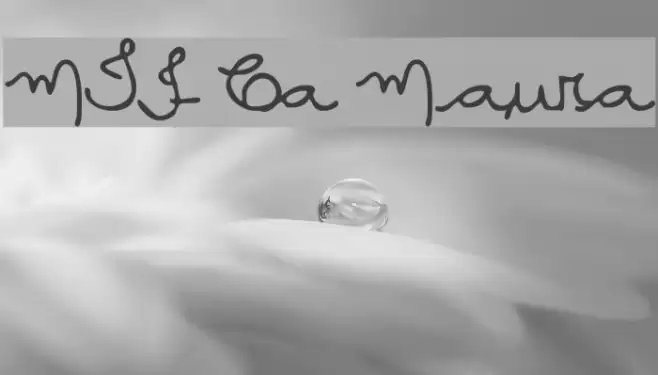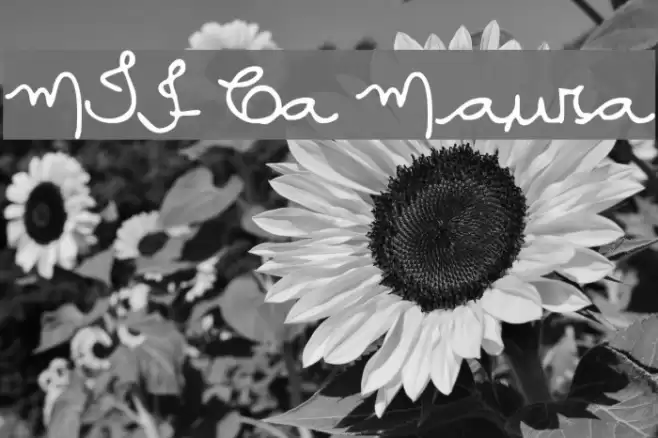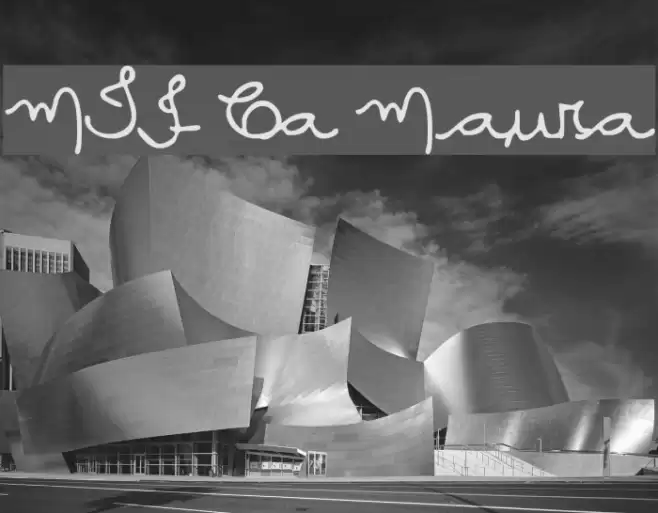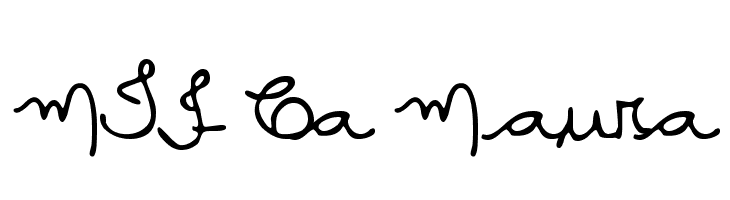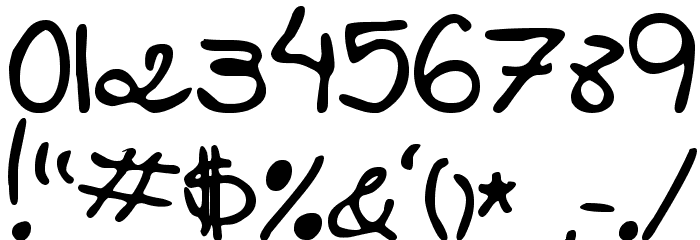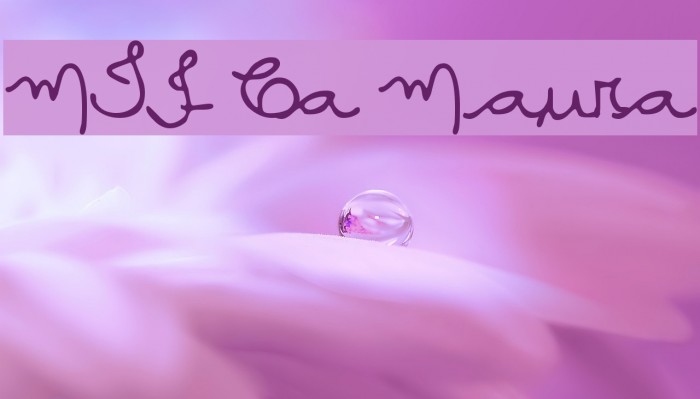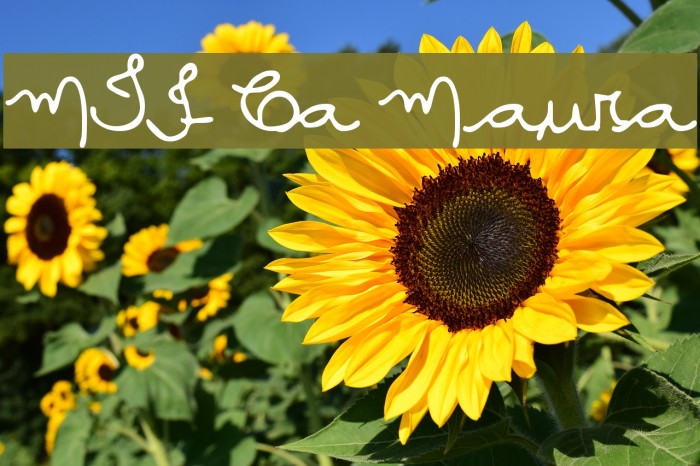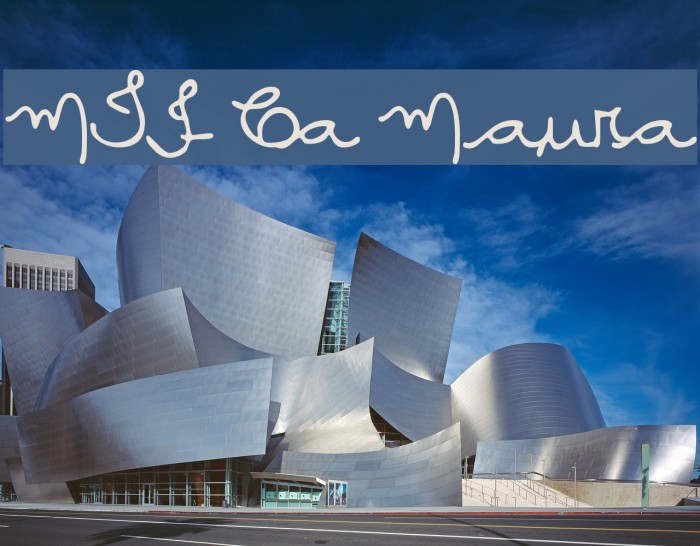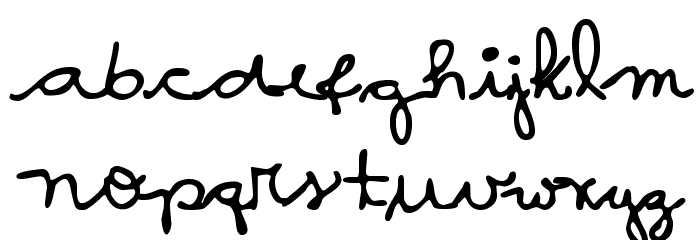
MTF Ca Maura Font
MTF Ca Maura Description
This font features a playful and whimsical script style, characterized by its flowing, interconnected letters. The uppercase and lowercase characters exhibit a consistent, fluid motion, giving the impression of handwritten text. The numbers and special characters maintain this playful aesthetic, with rounded edges and a slightly exaggerated form that adds to the overall charm. The font's style is reminiscent of casual handwriting, making it approachable and friendly. It is well-suited for projects that require a personal touch, such as invitations, greeting cards, or playful branding.
A playful, whimsical script font with a handwritten feel from Uncategorized fonts.
- Proposed Projects: Ideal for invitations, greeting cards, playful branding, and personal projects.
- Use Case: Logos, Headlines, Invitations